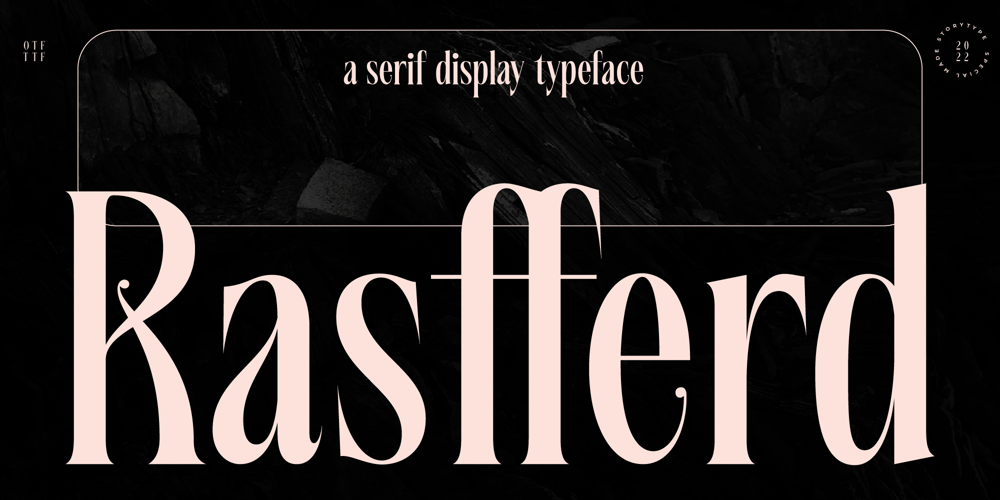
Rasfferd Font Family was designed by Heru Utama Putra and published by Letterena Studios. Rasfferd contains 2 styles and family package options. Rasfferd is a beautiful serif font that has a broad appeal and can be used for any project. This typeface will enhance your craft with little effort, making your product stand out from the competition.